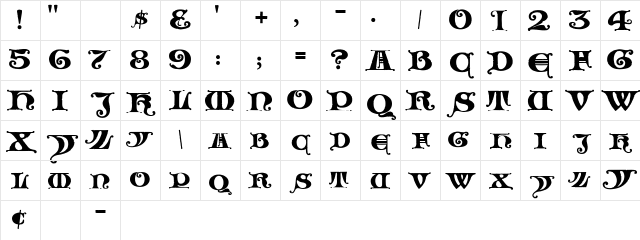
Complete LHF Henderson Church Regular glyph index. Displaying only characters natively supported by LHF Henderson Church Regular font.
LHF Henderson Church is a composed and adaptable typeface that performs quietly and consistently across a wide range of design contexts.